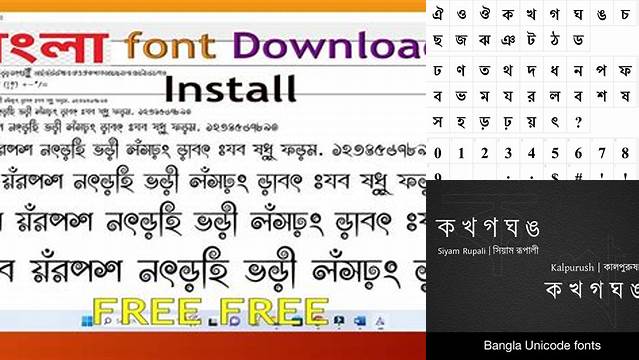
Hey guys! Are you looking for the perfect Bangla font for your iOS device? You've come to the right place! In this article, we're diving deep into the world of iOS Bangla fonts, specifically focusing on TTF (TrueType Font) files that you can download for free. We'll cover everything from where to find them, how to install them, and even some tips on choosing the best font for your needs. So, buckle up and let's get started!
Understanding iOS Bangla Font Needs
Before we jump into the downloads, let's understand why having a good Bangla font on your iOS device is so important. Bangla, also known as Bengali, is the seventh most spoken language in the world, and if you're a Bangla speaker, you'll definitely want your phone to display Bangla text correctly and beautifully. Whether it's for reading news, chatting with friends, or creating content, having a compatible and visually appealing font makes a huge difference.
Exploring Bangla Font Options for iOS
When it comes to Bangla fonts for iOS, the options are quite diverse. You'll find everything from traditional, elegant fonts to modern, playful ones. Think about what kind of vibe you're going for. Are you writing a formal document? Or maybe designing a fun social media post? The right font can really set the tone.
Here are some things to consider when choosing a font:
- Readability: Is the font easy to read on a small screen? Some fonts look beautiful in print but become a jumbled mess on a phone.
- Style: Does the font match your aesthetic? A sleek, modern font might be perfect for a tech blog, while a more ornate font could be great for poetry.
- Completeness: Does the font include all the Bangla characters and glyphs you need? Some fonts might be missing certain characters, which can be frustrating.
- Typefounding: The development of typefounding in the 19th century led to the creation of standardized Bangla typefaces.
- Digital Fonts: The advent of digital fonts has opened up new possibilities for Bangla typography, allowing for greater creativity and flexibility.